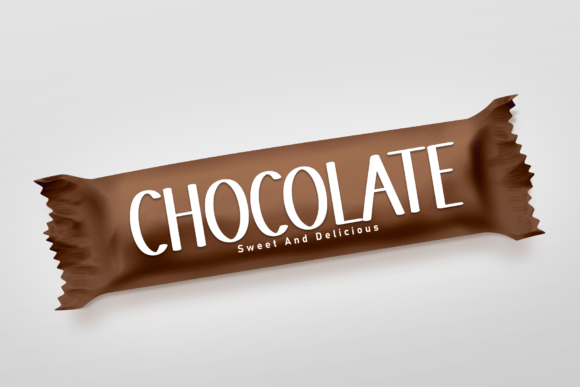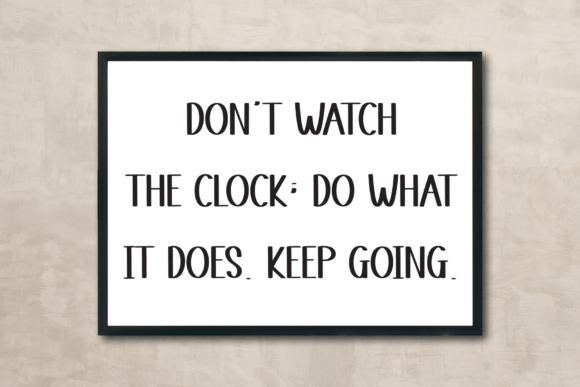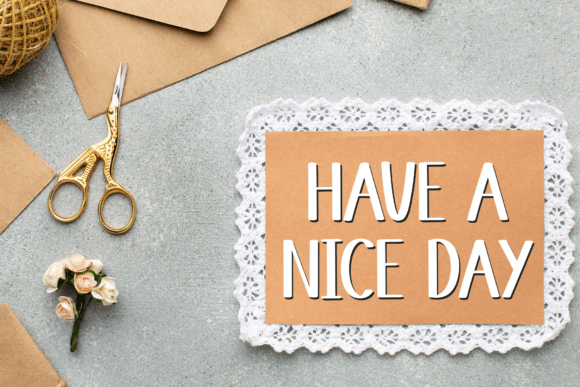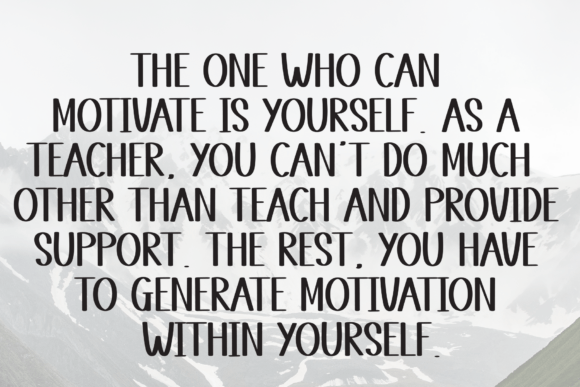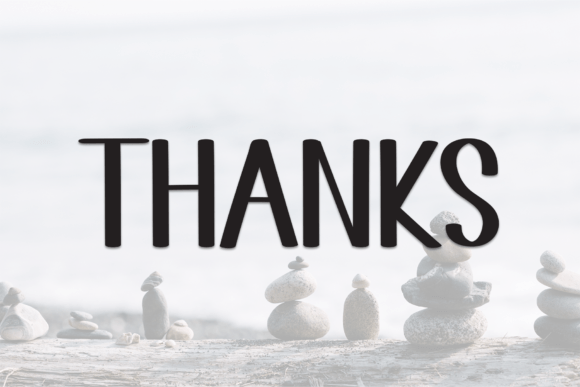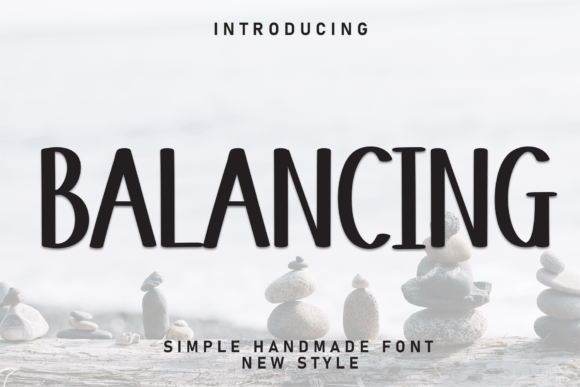
Introducing Balancing Font: The Perfect Blend of Charm and Warmth
Are you tired of using the same old fonts for your design projects? Look no further! We’re excited to introduce Balancing Font, a delightful handwritten display font that’s sure to add a touch of magic to your creations. With its playful and endearing spirit, this font is perfectly suited for crafting enchanting wedding invitations, personalized cards, and any design project that needs a dash of fun.
The Perfect Blend of Sweetness and Friendliness
Balancing Font boasts an appealing aesthetic that skillfully blends sweetness and friendliness to create beautiful and engaging designs. Its unique charm and warmth make it an ideal choice for designers and crafters who want to add a personal touch to their work. Whether you’re creating wedding invitations, greeting cards, or social media graphics, this font is sure to make your designs stand out from the crowd.
What Makes Balancing Font So Special?
- Playful and Endearing Spirit: Balancing Font has a lively and affectionate personality that’s perfect for creating designs that are fun, youthful, and engaging.
- Handwritten Display Font: This font’s handwritten style gives it a personal and human touch, making it ideal for designs that require a more intimate and emotional connection.
- Charm and Warmth: Balancing Font exudes a sense of warmth and charm that’s sure to capture the hearts of your audience.
- Versatile: This font can be used for a wide range of design projects, from wedding invitations and greeting cards to social media graphics and branding materials.
How to Use Balancing Font in Your Designs
Balancing Font is incredibly easy to use and can be applied to a variety of design projects. Here are a few ideas to get you started:
- Wedding Invitations: Create beautiful and unique wedding invitations that set the tone for the big day.
- Personalized Cards: Add a personal touch to your greeting cards and make them extra special for the recipient.
- Social Media Graphics: Use Balancing Font to create engaging social media graphics that showcase your brand’s personality.
- Branding Materials: Apply this font to your branding materials, such as business cards, brochures, and letterheads, to add a touch of warmth and personality.
Why Choose Balancing Font?
With so many fonts available, why choose Balancing Font? Here are just a few reasons why this font stands out from the rest:
- Unique and Eye-Catching: Balancing Font is a one-of-a-kind font that’s sure to grab attention and make your designs stand out.
- Easy to Read: Despite its playful and handwritten style, Balancing Font is incredibly easy to read, making it perfect for body text and headings.
- Customizable: This font can be easily customized to fit your design needs, allowing you to adjust the size, color, and style to suit your project.
In conclusion, Balancing Font is a delightful handwritten display font that’s perfect for designers and crafters who want to add a touch of charm and warmth to their designs. With its playful and endearing spirit, this font is sure to make your designs stand out from the crowd. So why not let your creativity flourish with this fun and fantastic font? Download Balancing Font today and start creating beautiful and engaging designs that capture the hearts of your audience.